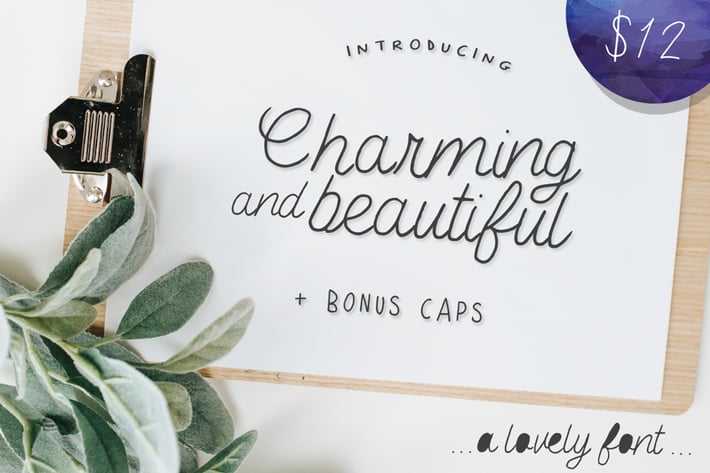
Charming and Beautiful Font
Charming and beautiful is a fabulous font that looks clean and hand-written. Perfect for bloggers, influencers and logo designers alike! :)